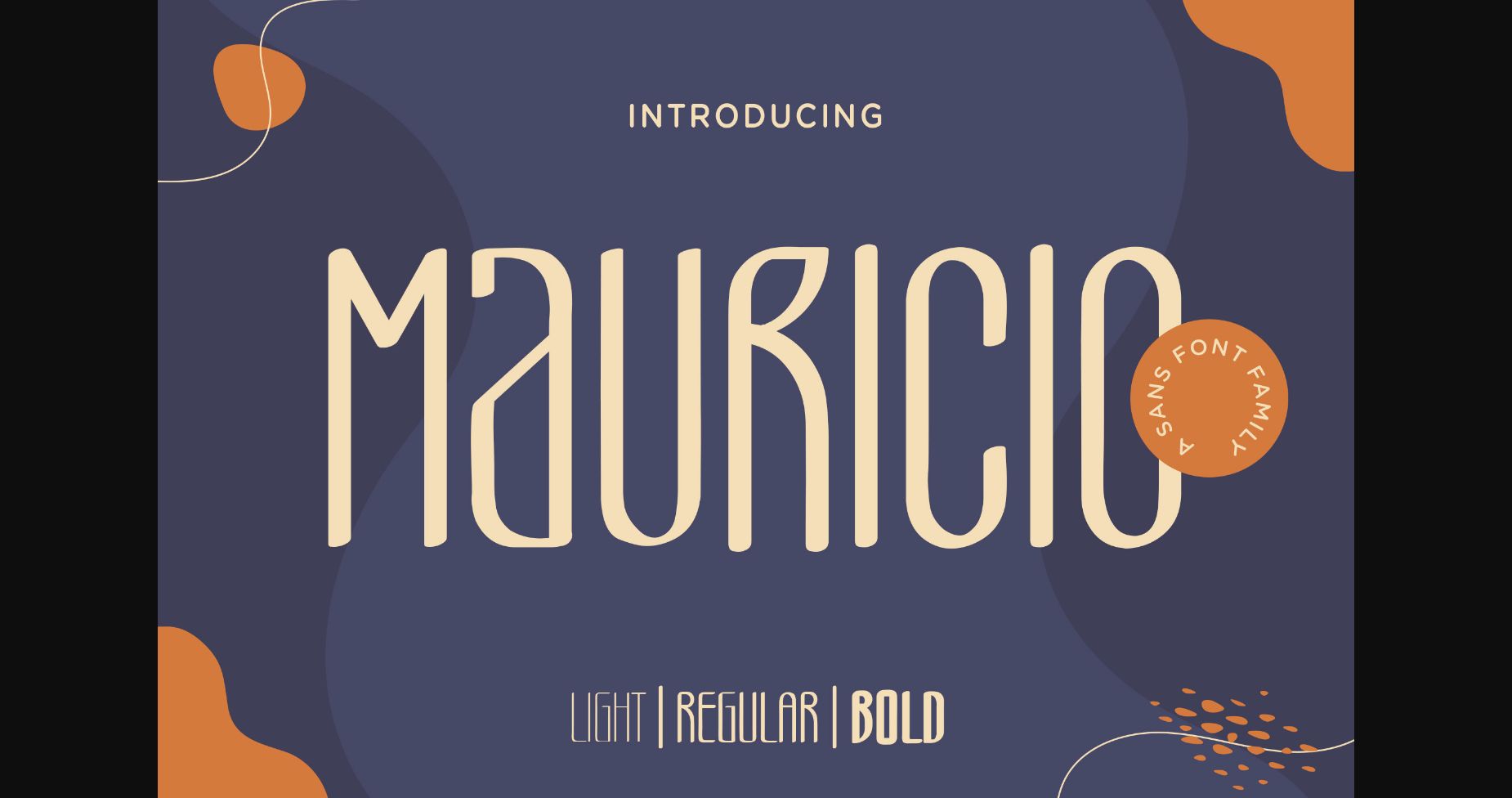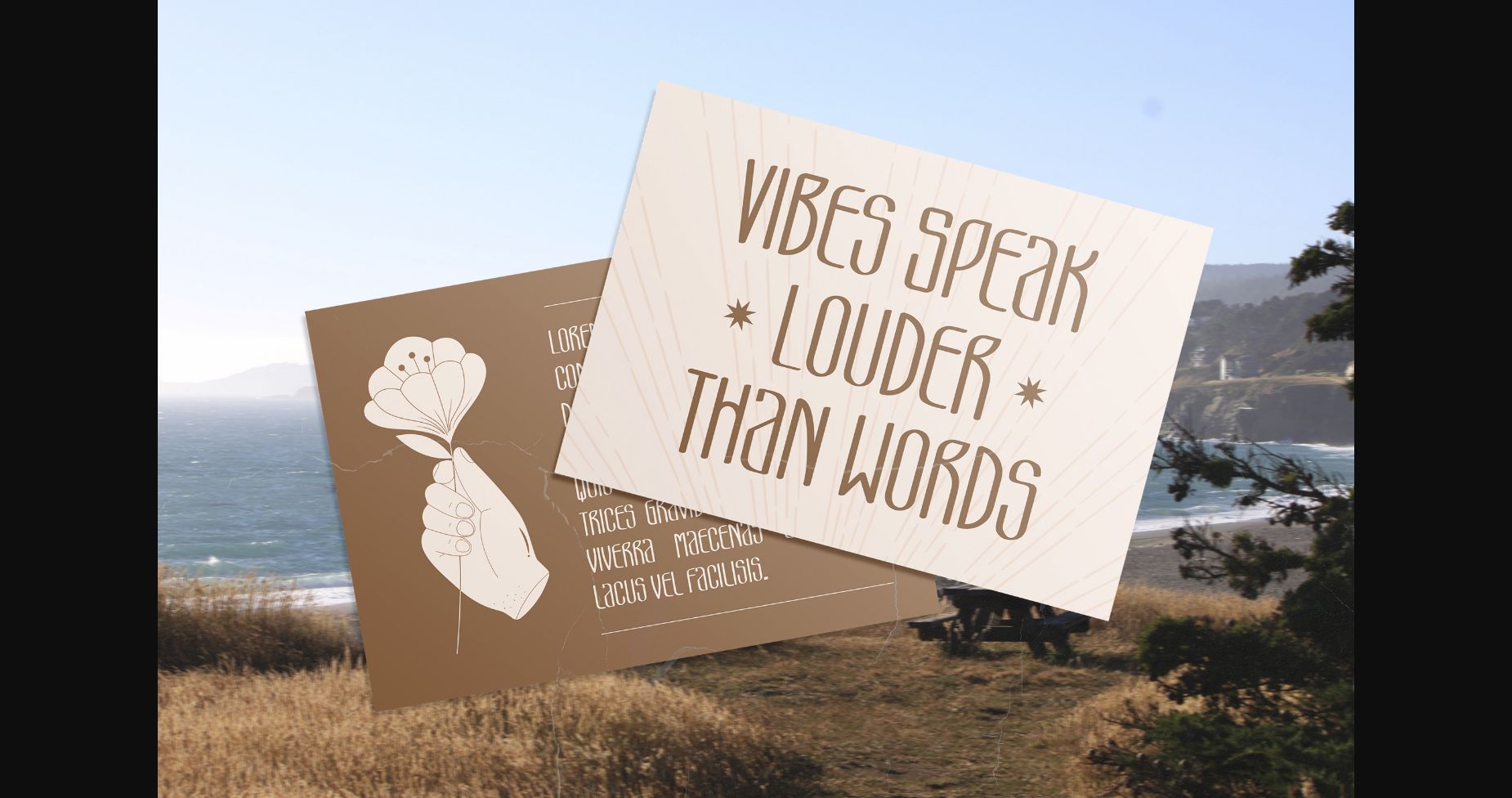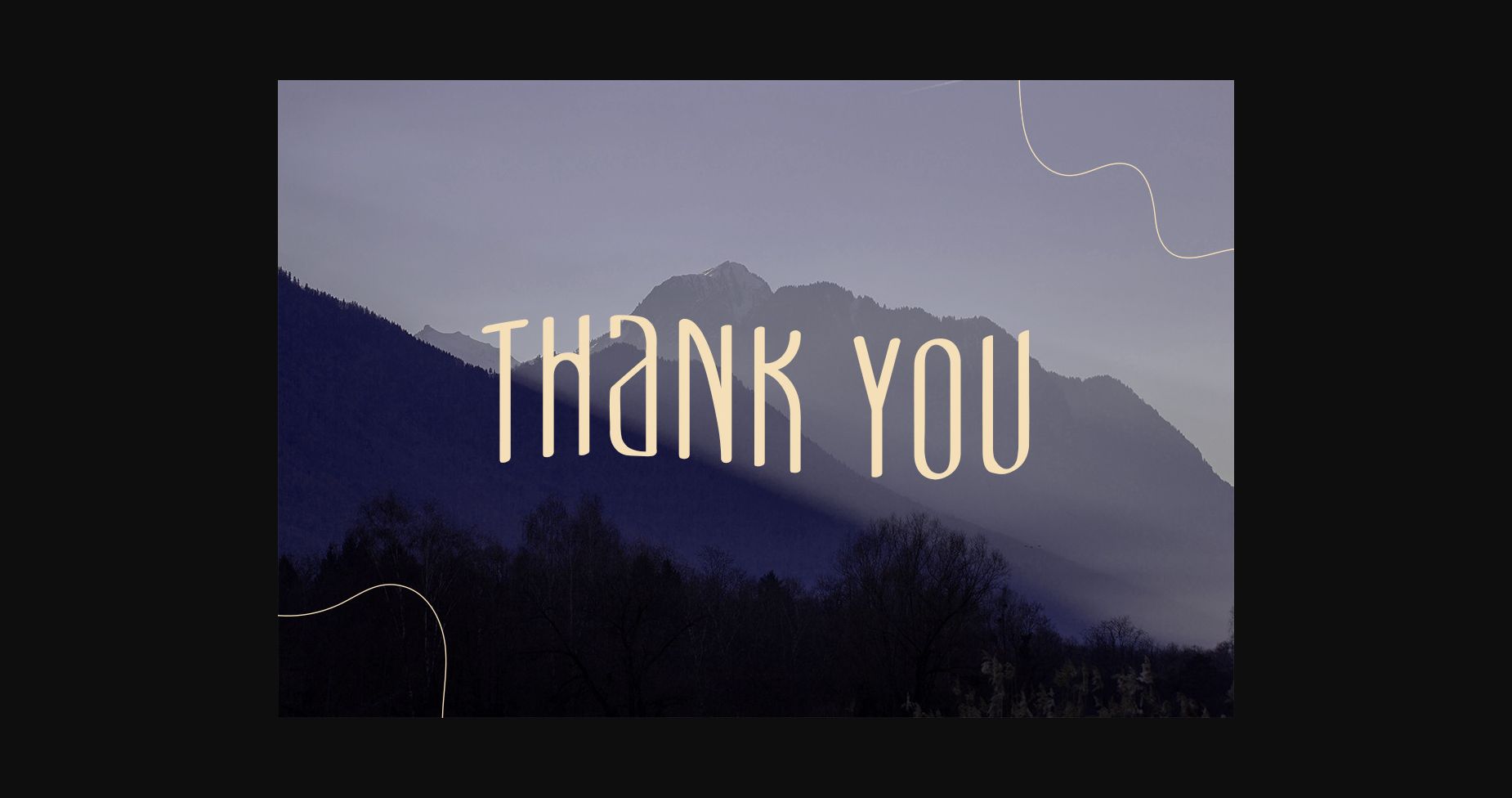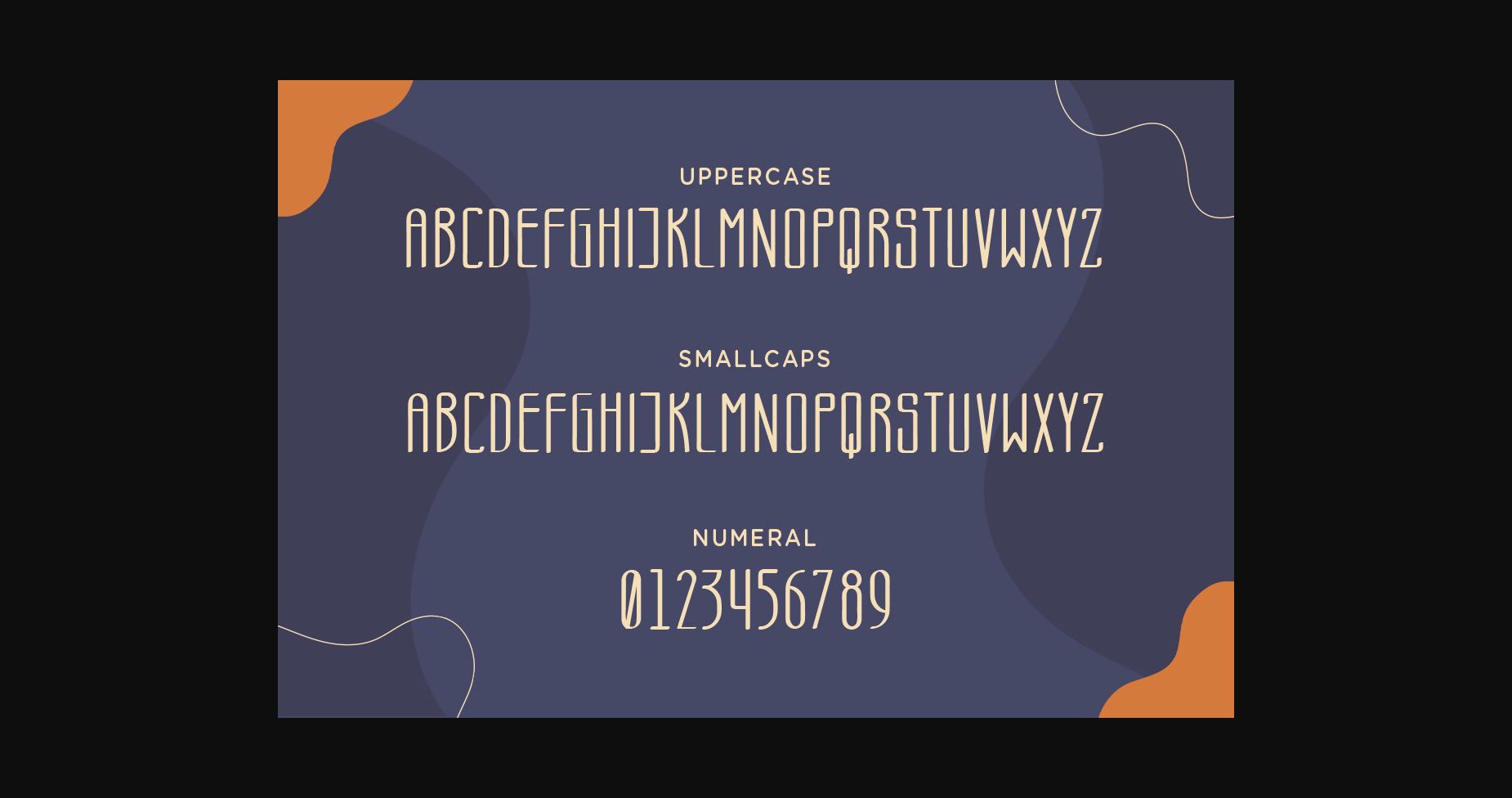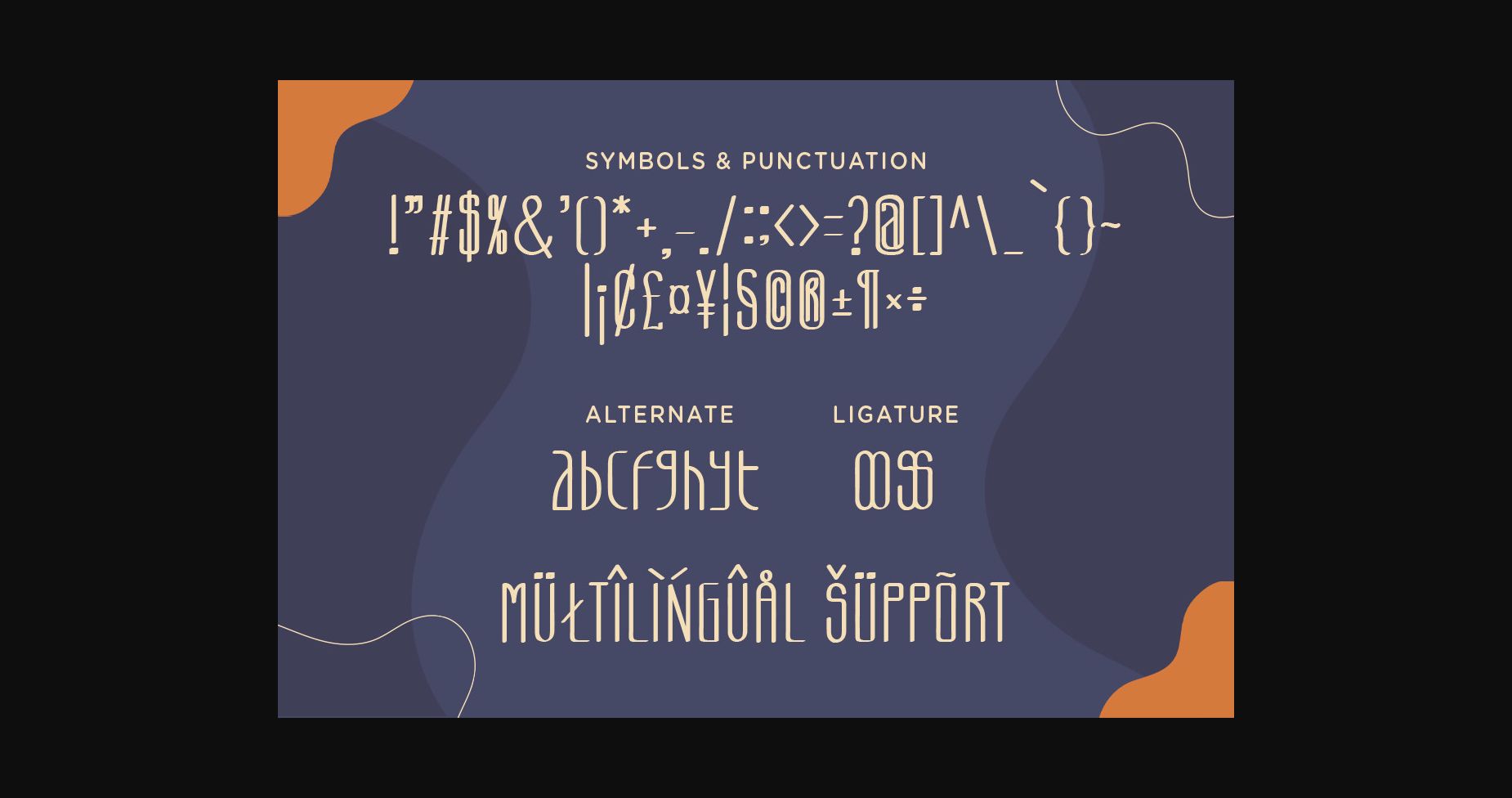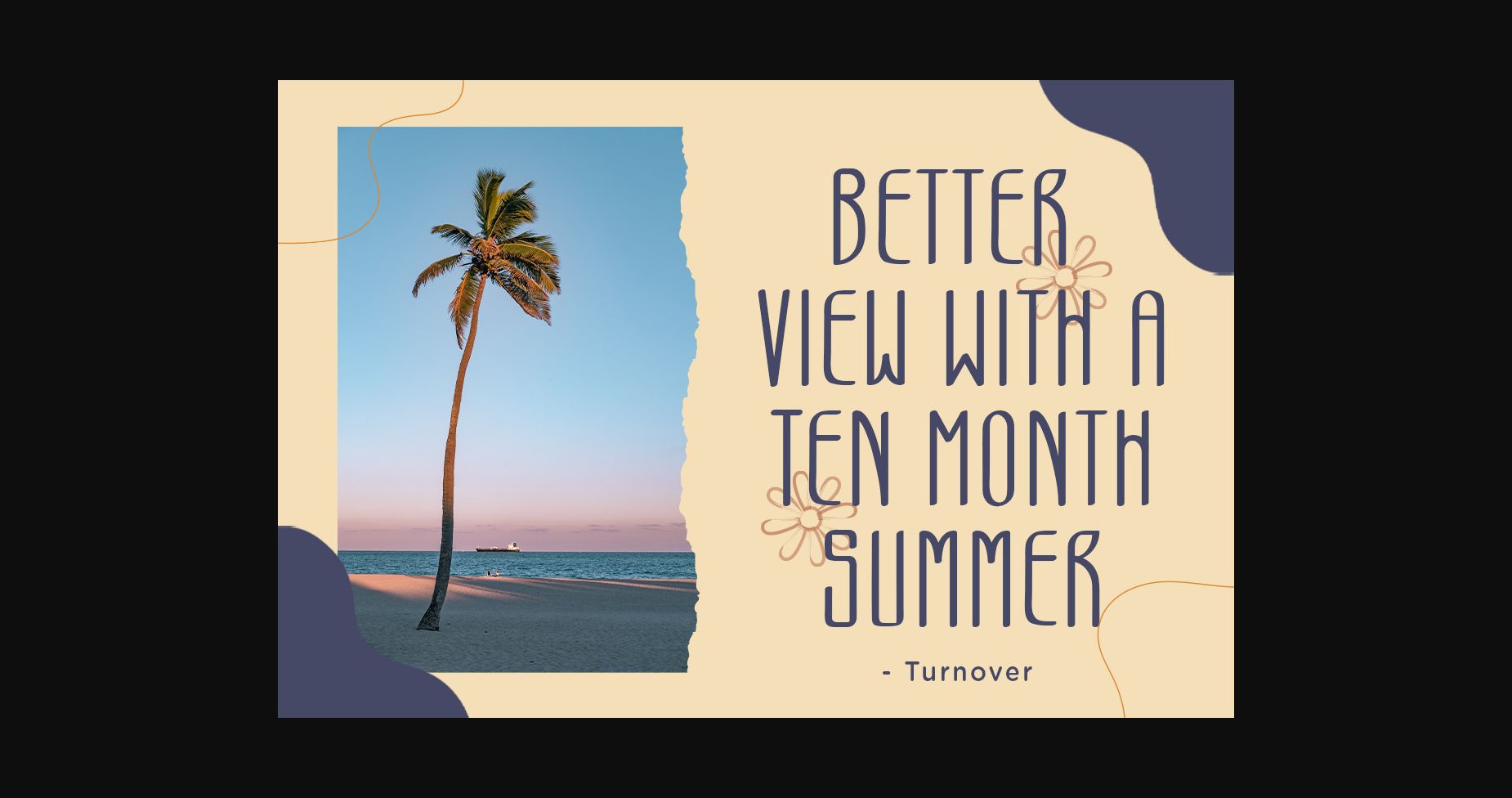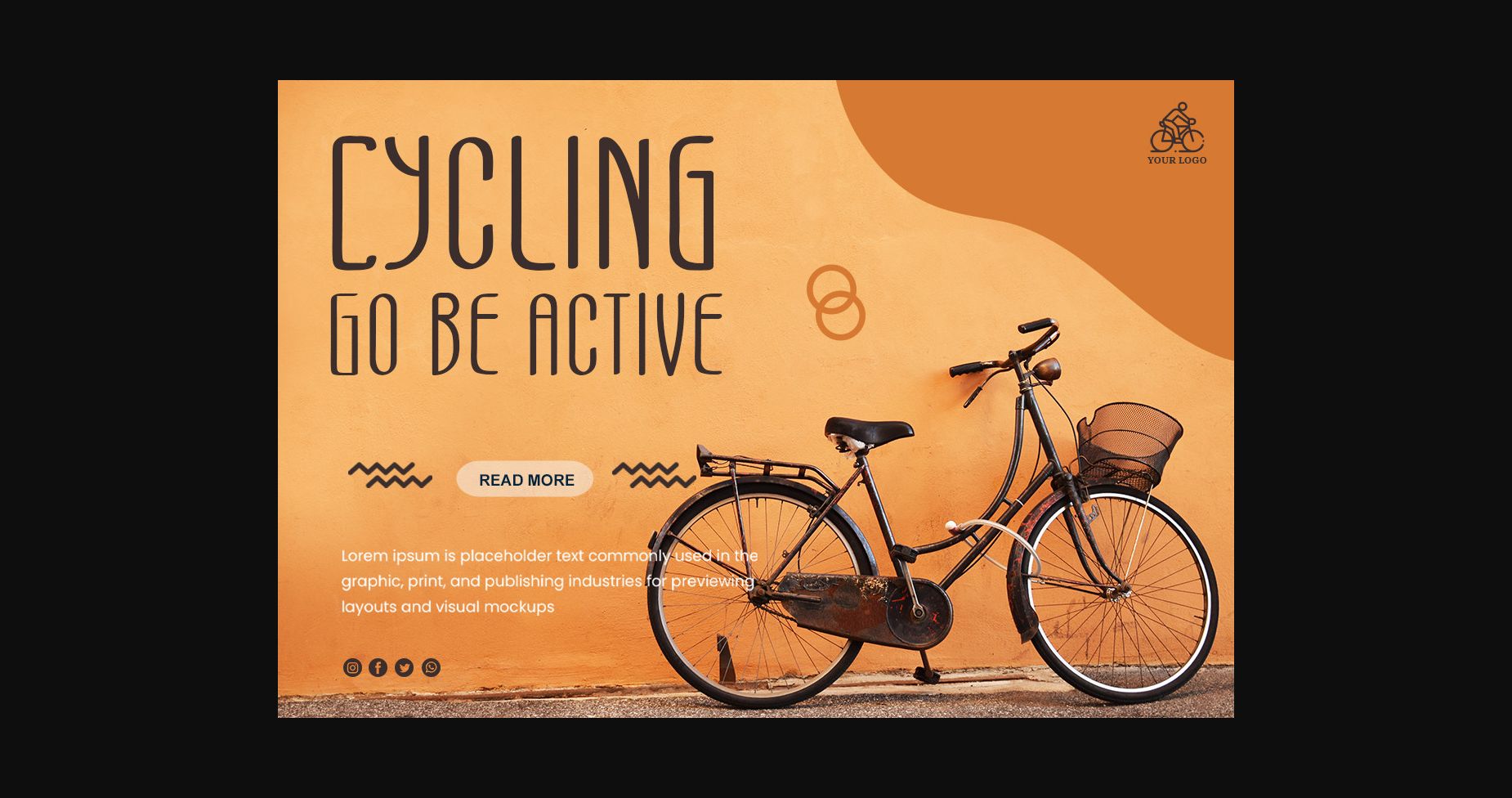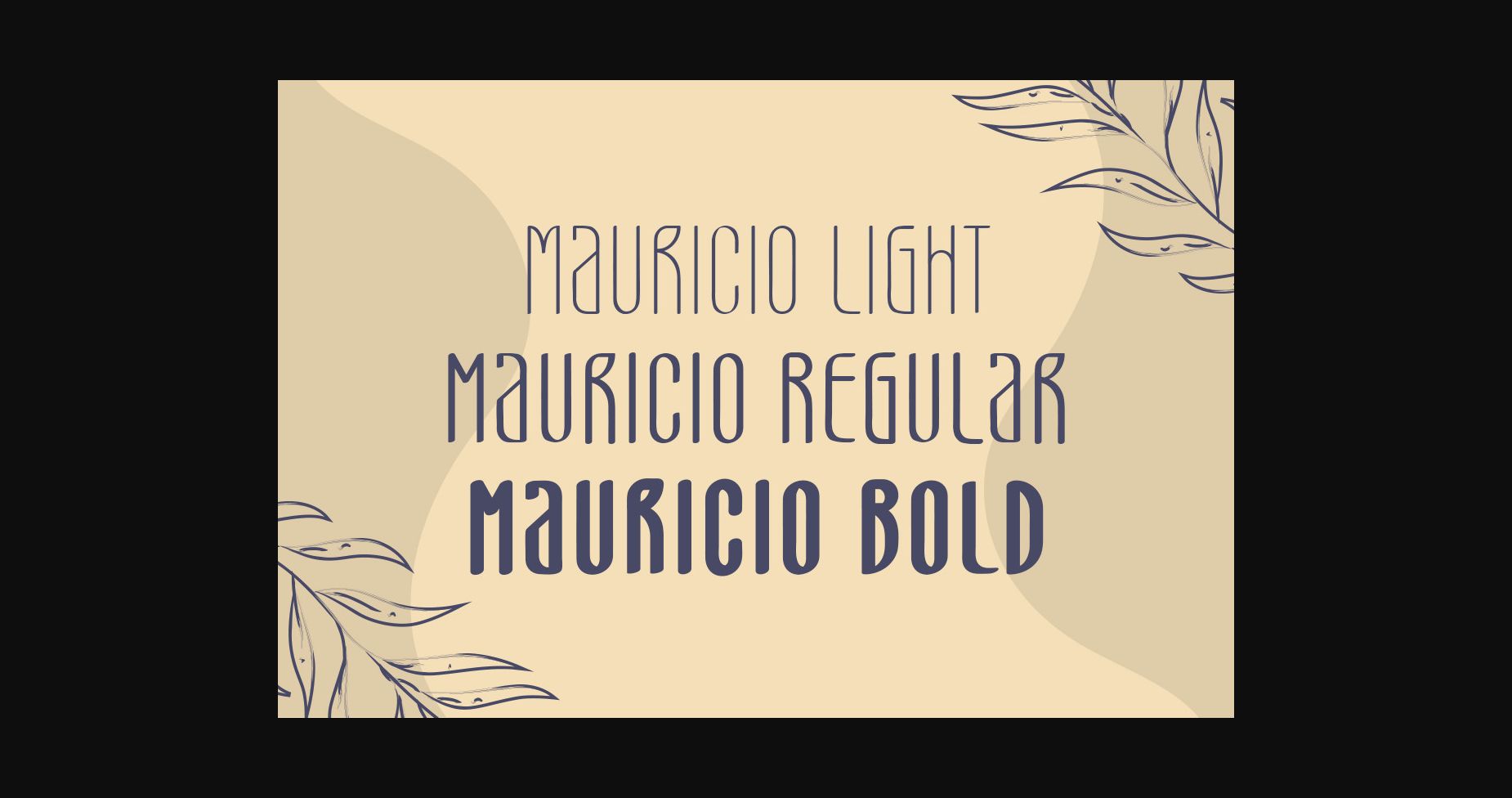
Mauricio Font
About Mauricio Font
Mauricio is a simple and cool looking sans serif font. No matter the topic, this font will be an incredibly asset to your fonts’ library, as it has the potential to elevate any creation.